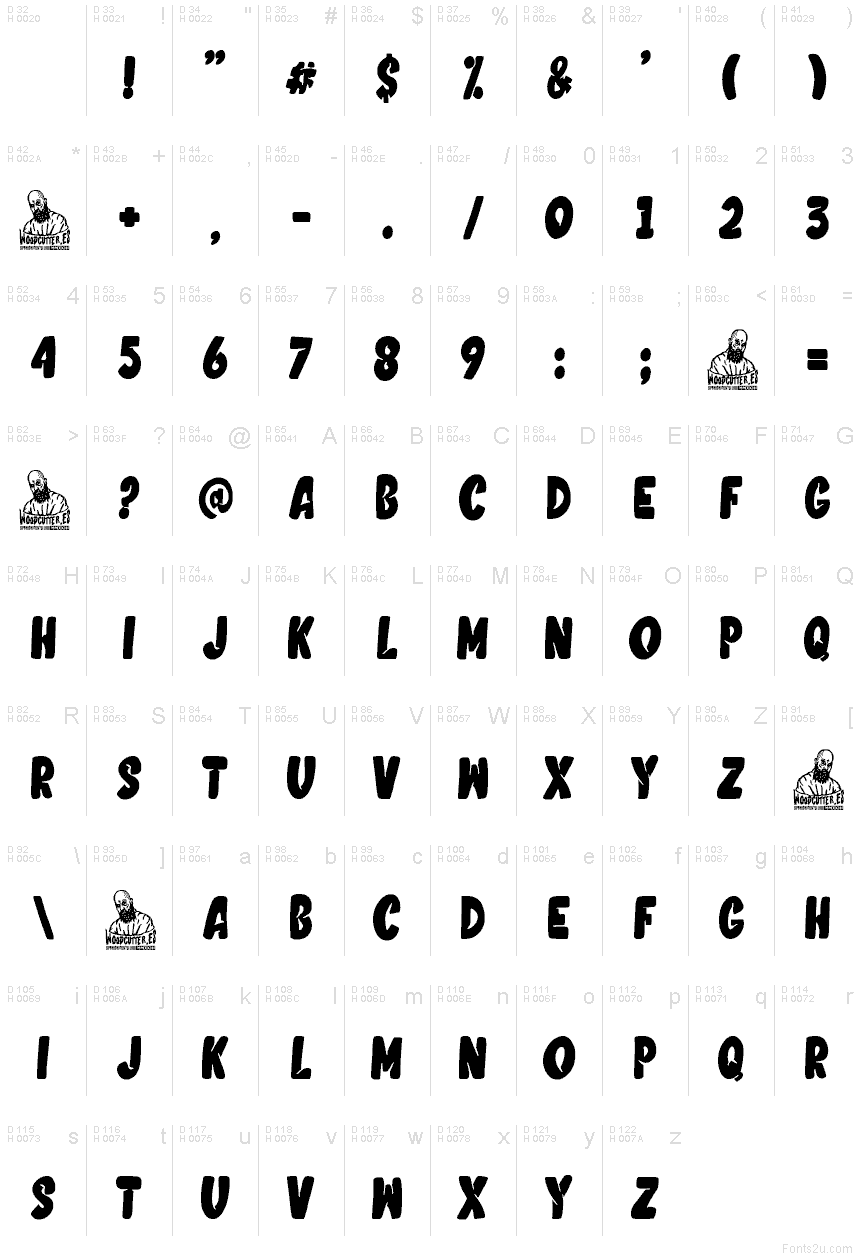
Copacabana Corporation
Copacabana Corporation font by Woodcutter is a bold and condensed comic-like display font. Vibrant in its upbeat and eye-catching aesthetics, it draws attention with its retro-inspired features to make creative endeavors unique while enjoying its strong visual impacts in the process.